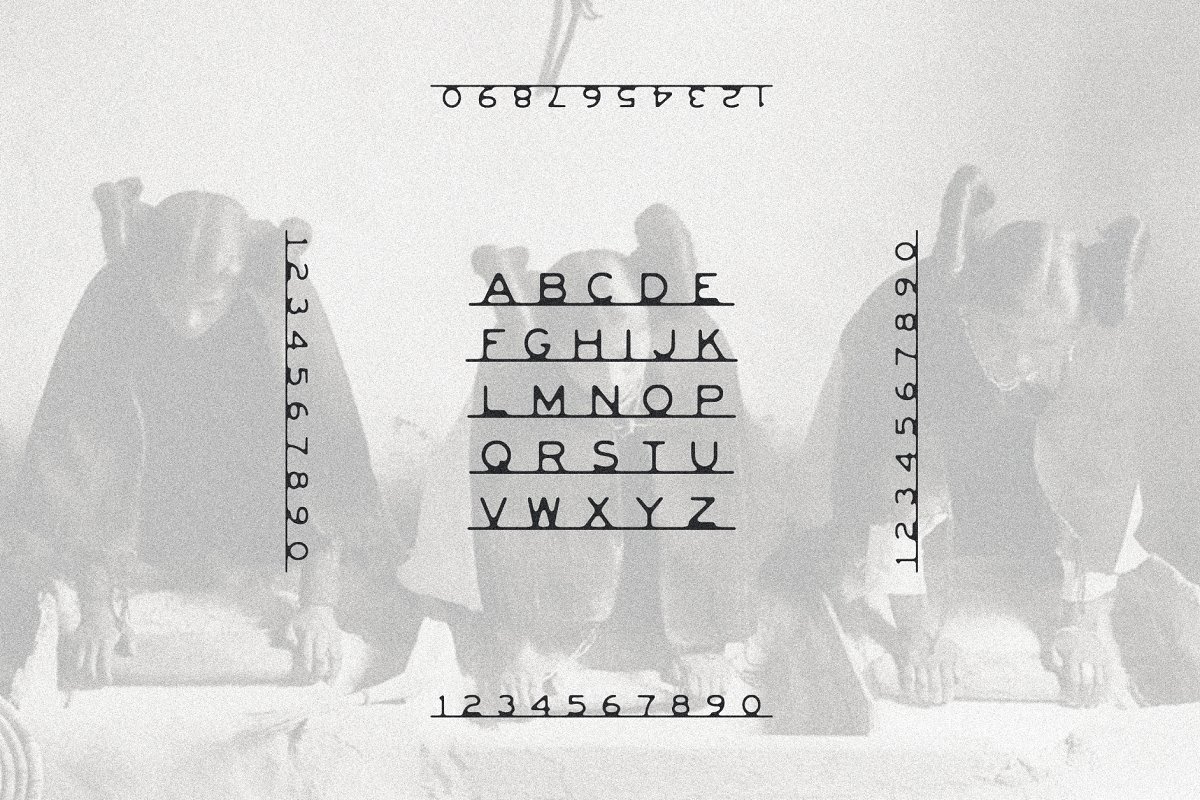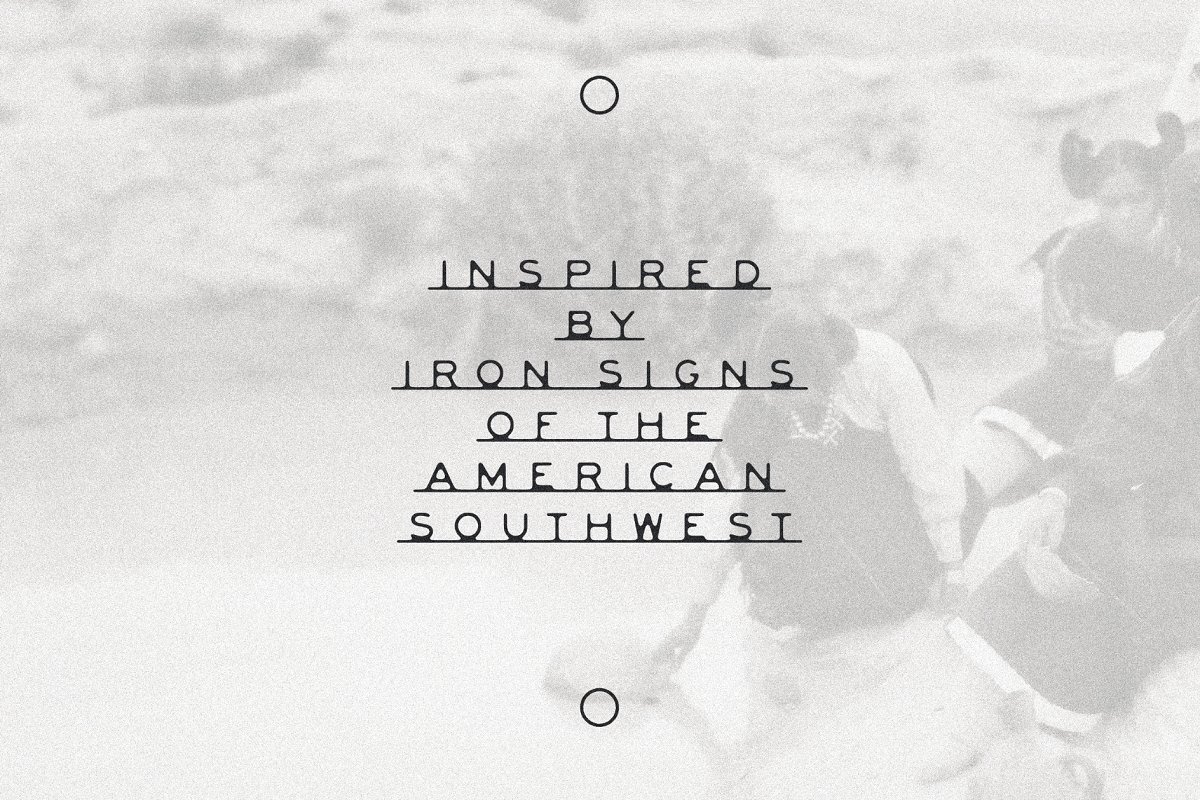
About the Terlingua Font
Terlingua is a handcrafted typeface that was designed after old iron welded signs often found in the American Southwest, The typeface captures an aesthetic without any extra effort on the part of the user, simply type and you have your own classic welded sign, The name comes from a ghost town on the Texas-Mexico border and offers a beautiful look into a forgotten sun-soaked past